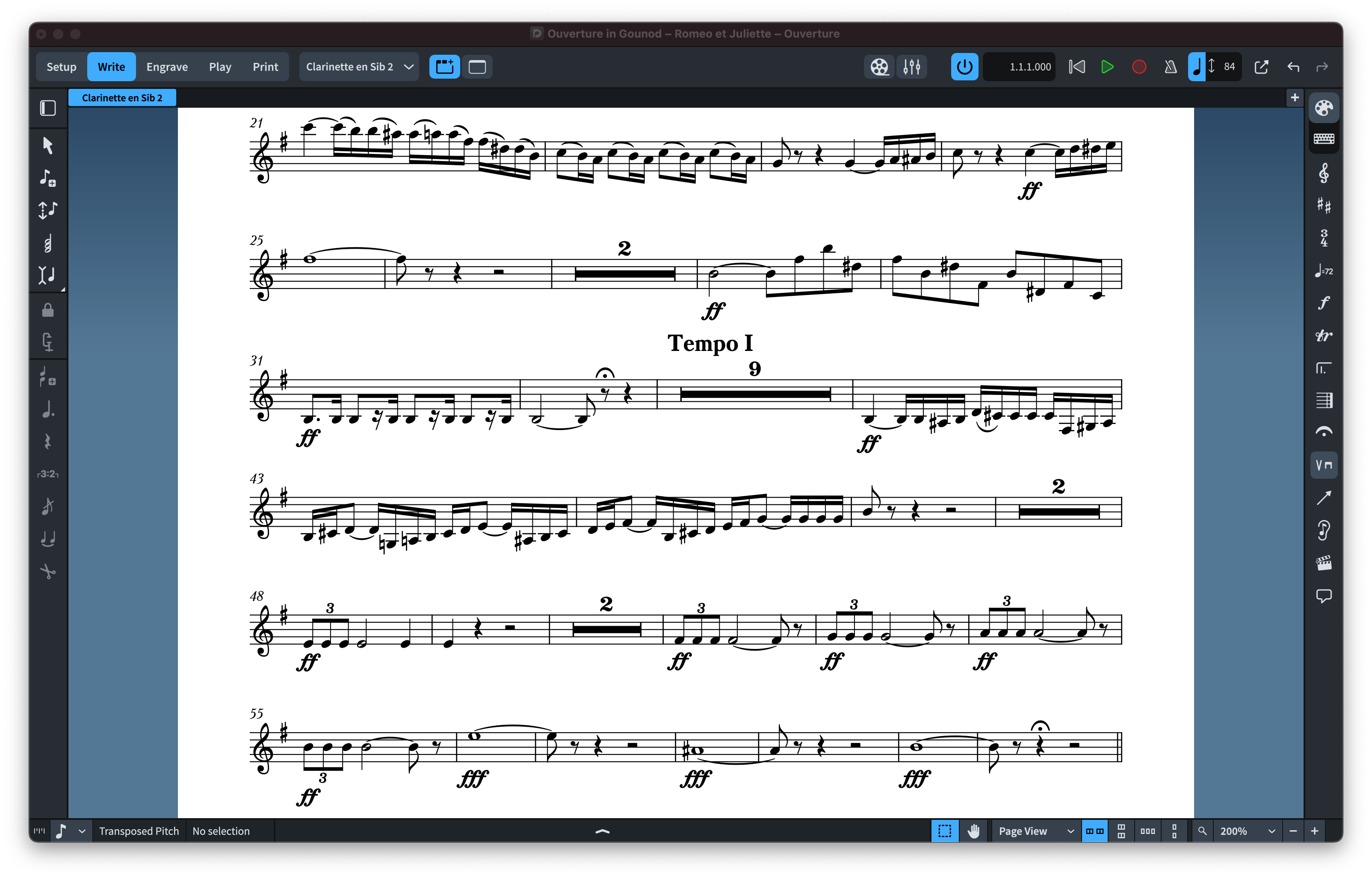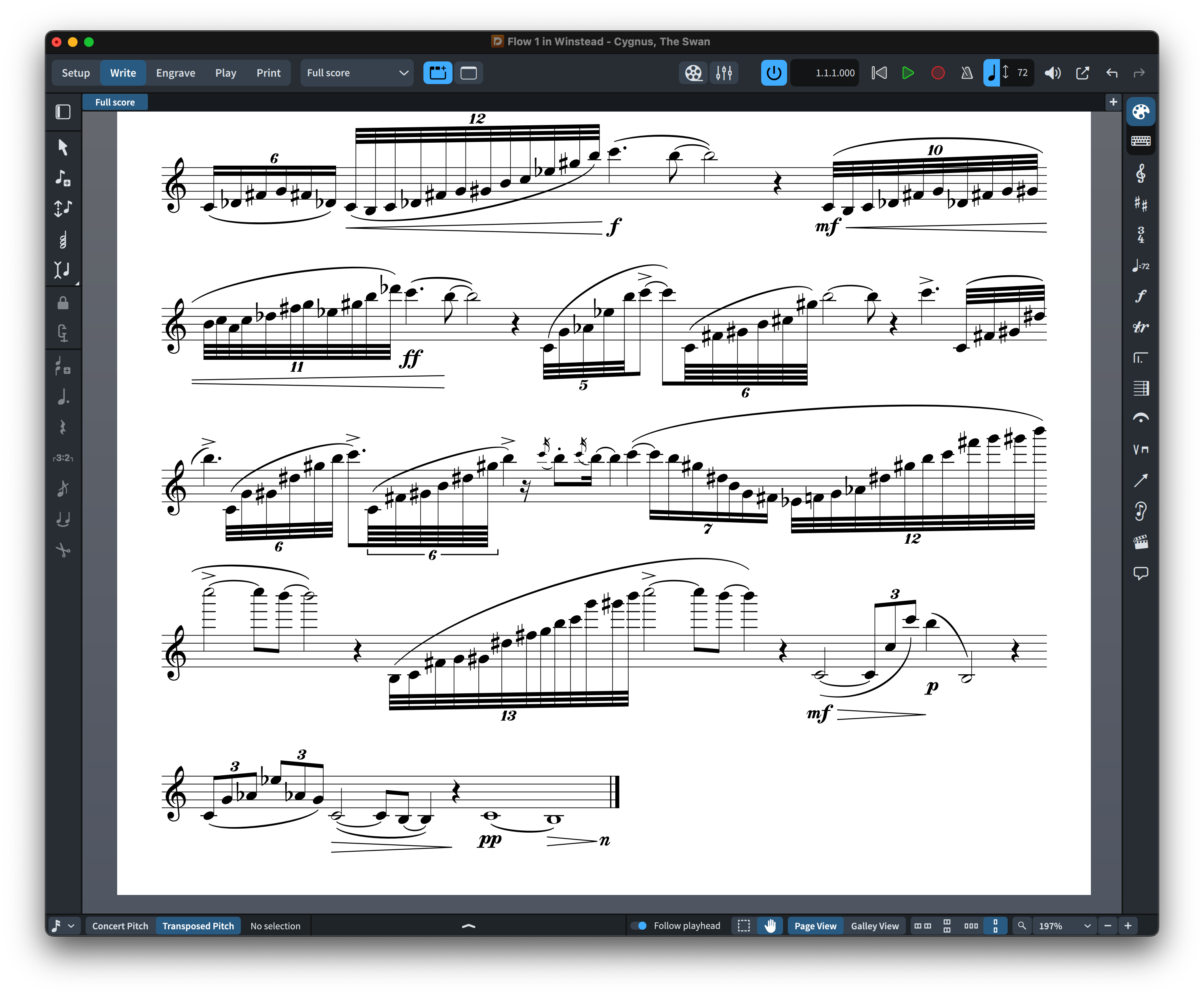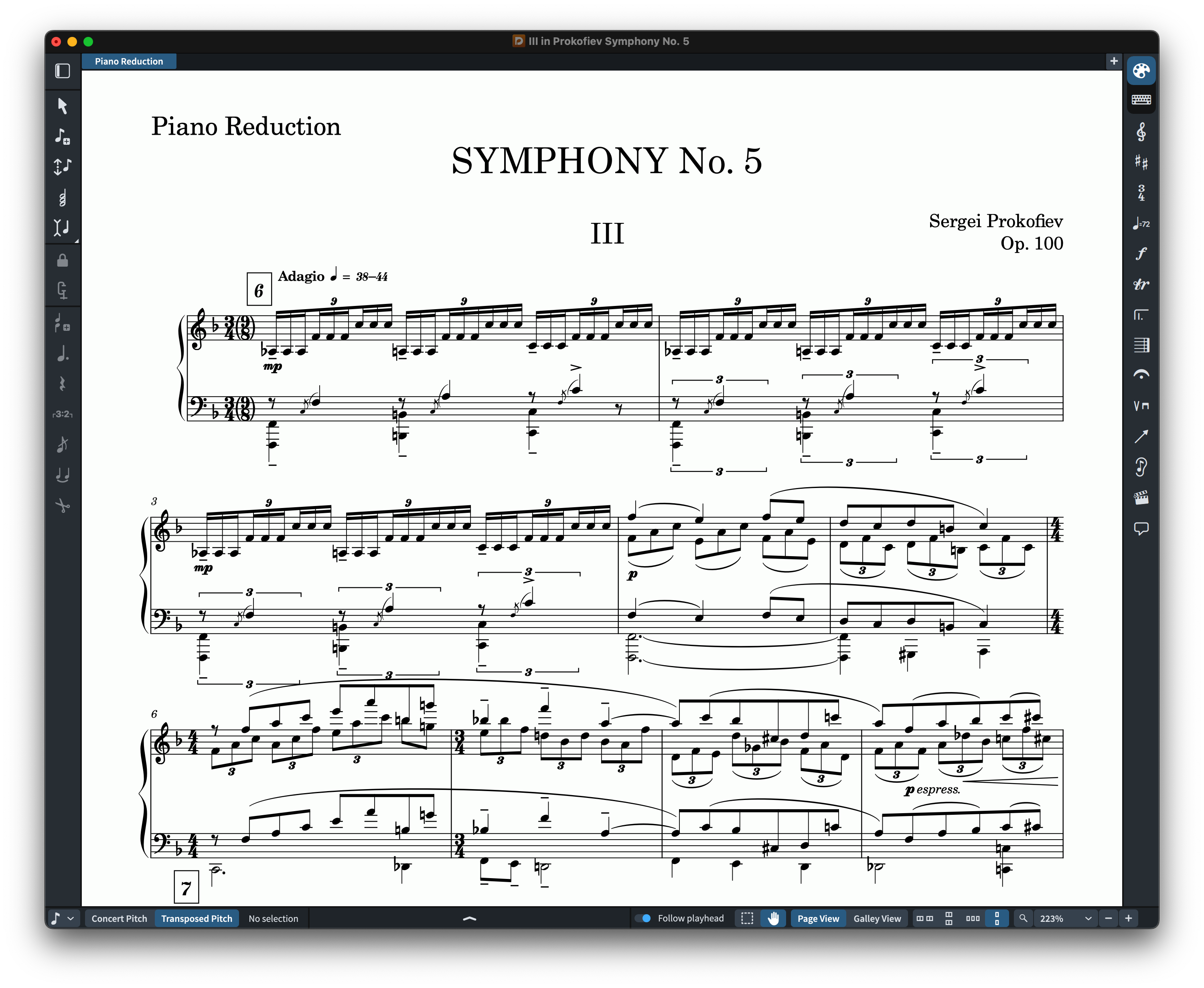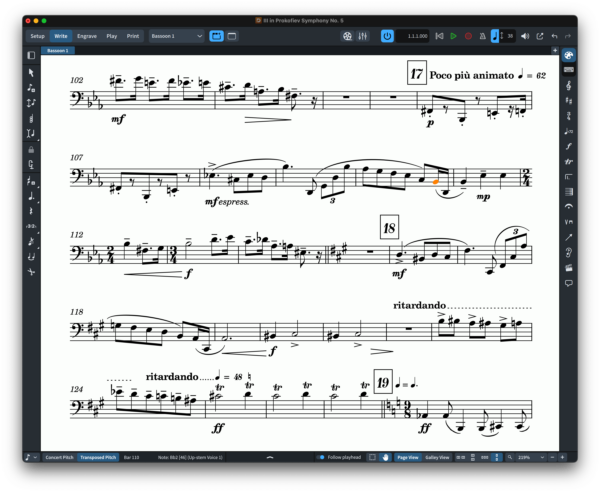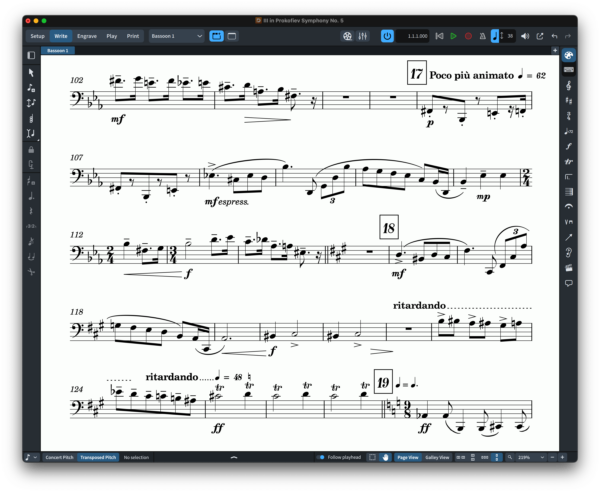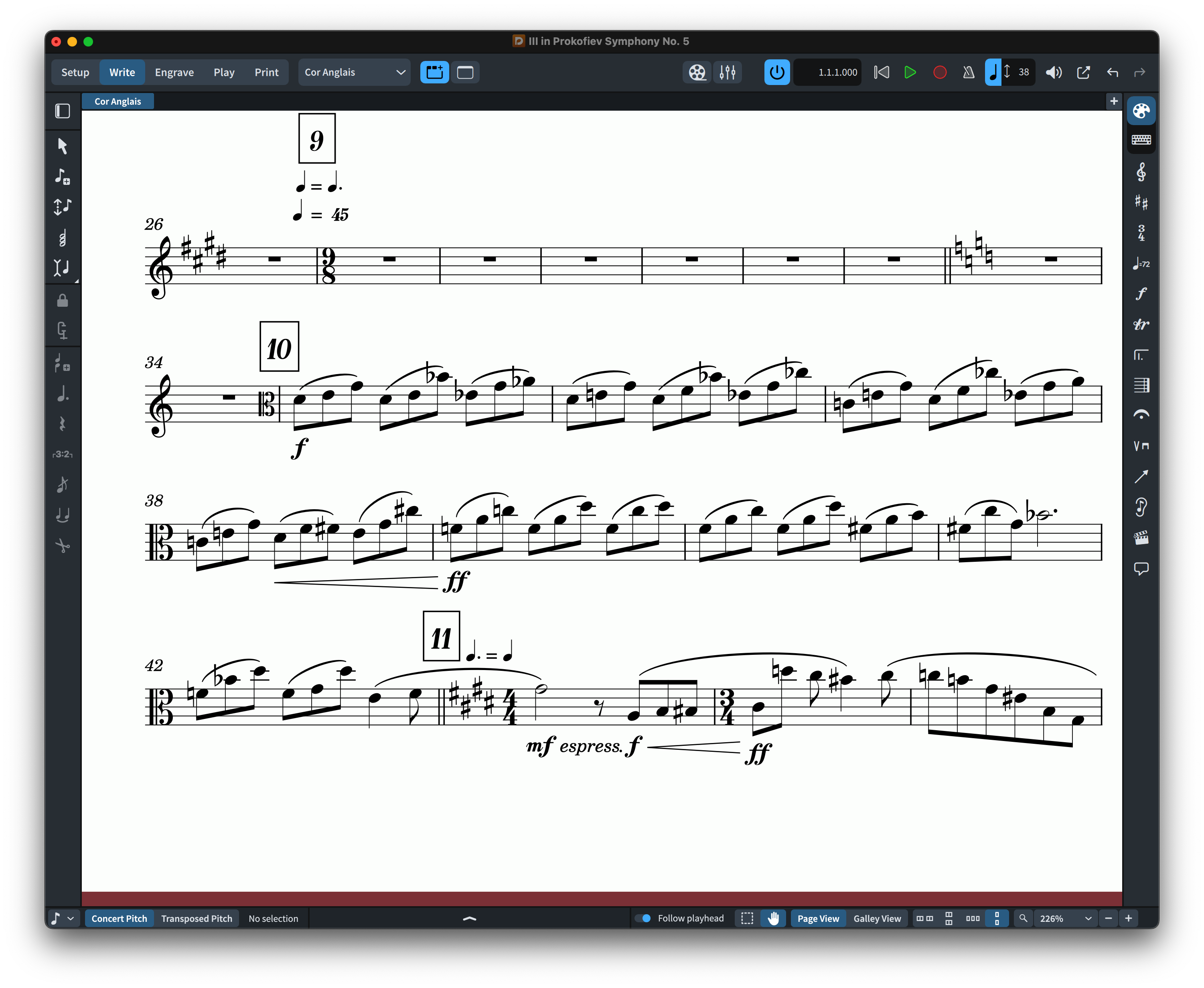
GRAPHIRA (SMuFL) Fonts
(Emulation of an early beloved music notation software product.)
TWO ELEGANT MUSIC FONTS FOR A STANDARD AND LIGHTER MODERN MUSIC NOTATION!
GRAPHIRA FOR DORICO & FINALE V27 FEATURE 2 SMUFL COMPLIANT MUSIC FONTS: “Graphira” & “Graphira STD”.
Graphira fonts are elegant engraver music fonts with a Standard (Graphira STD) and a Lighter Appearance (Graphira), yet more robust than some other music fonts, but more accurately representing the look of smooth music notation style. Graphira & Graphira STD can be used for modern sophisticated Pop or Rock, Jazz Bands, Piano and Vocals, Choirs, Marching Bands, and all types of musical ensembles even Symphonies! Graphira comes with a unique subtle individuality, but with a softer and fatter look, making it a great use for school manuals and education materials. Both fonts look fun and easy and will not scare your students! Graphira & Graphira Std work with Finale v27 and Dorico™ Pro version as an alternative to Finale Maestro and Bravura font, or any other SMuFL font.
I really like this font, for it’s gorgeous affect and excellent recreation. I can’t say that for MuseScore’s native font, but there’s a good reason why I keep coming back to @NorFonts for these files – they are scrumptious!